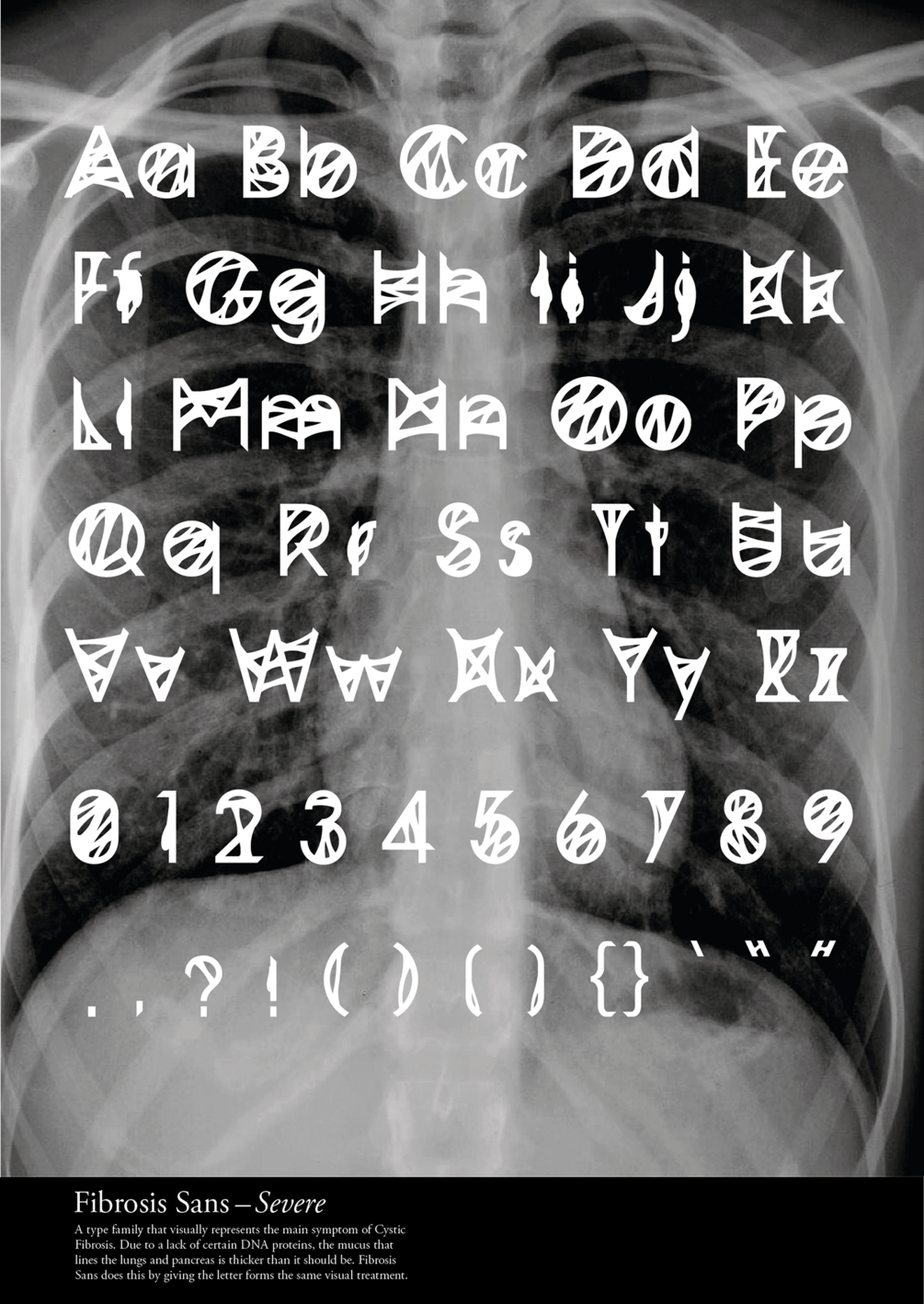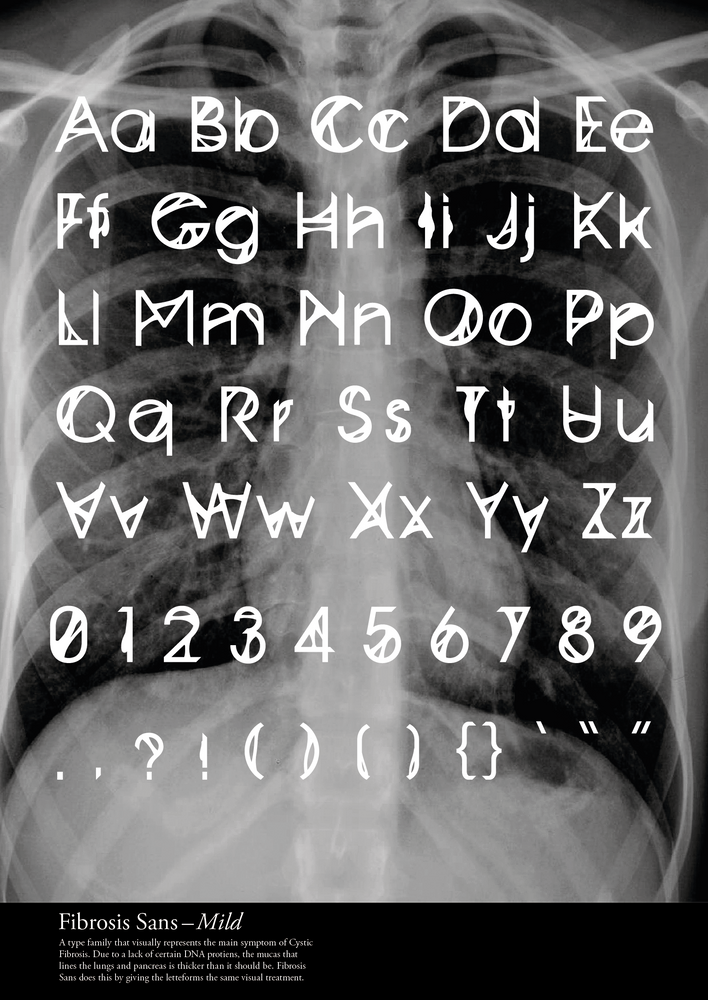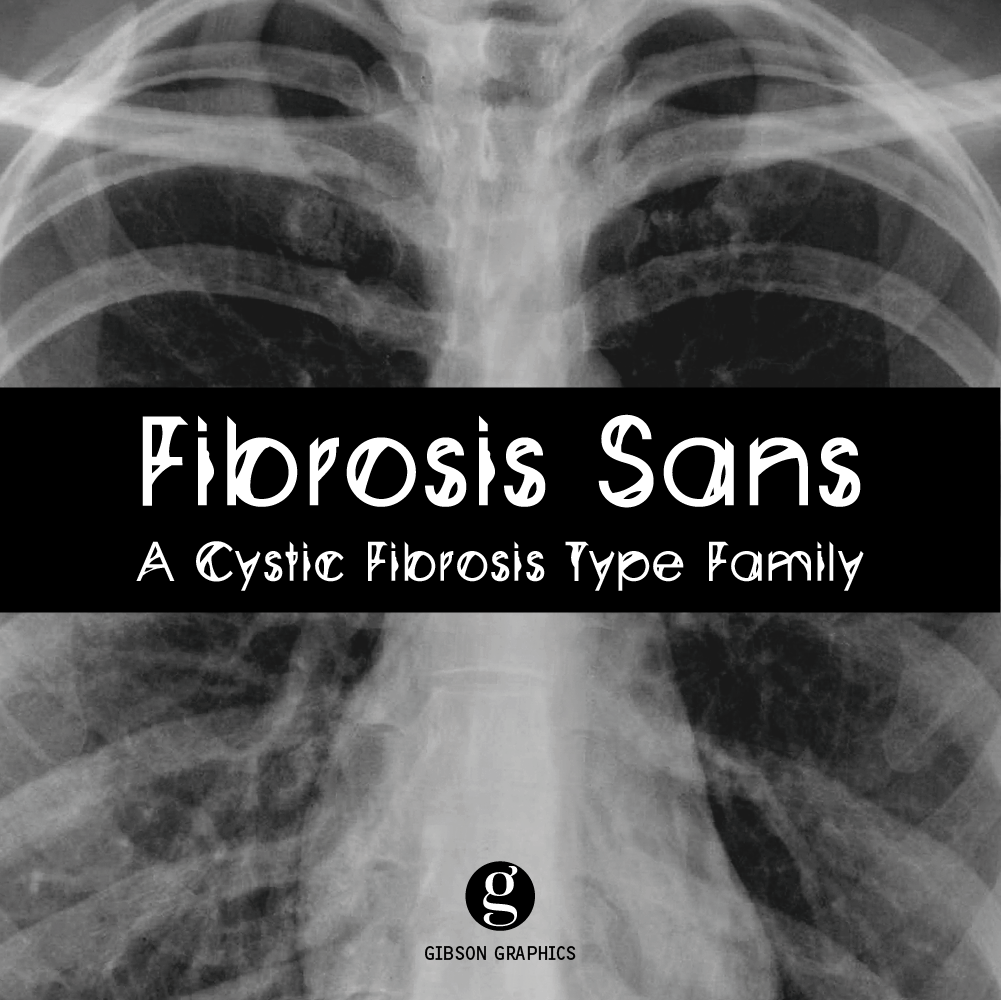
Fibrosis Sans
Fibrosis Sans is a type family based on the genetic condition, Cystic Fibrosis. With CF, certain proteins form incorrectly. This results in thicker mucas on the lung wall and pancreas.
This Type Family visually embodies this by clogging the spaces between the letterforms with the same thick mucas that is present on a CF patient’s lungs.
Fibrosis Sans | 2 Weights